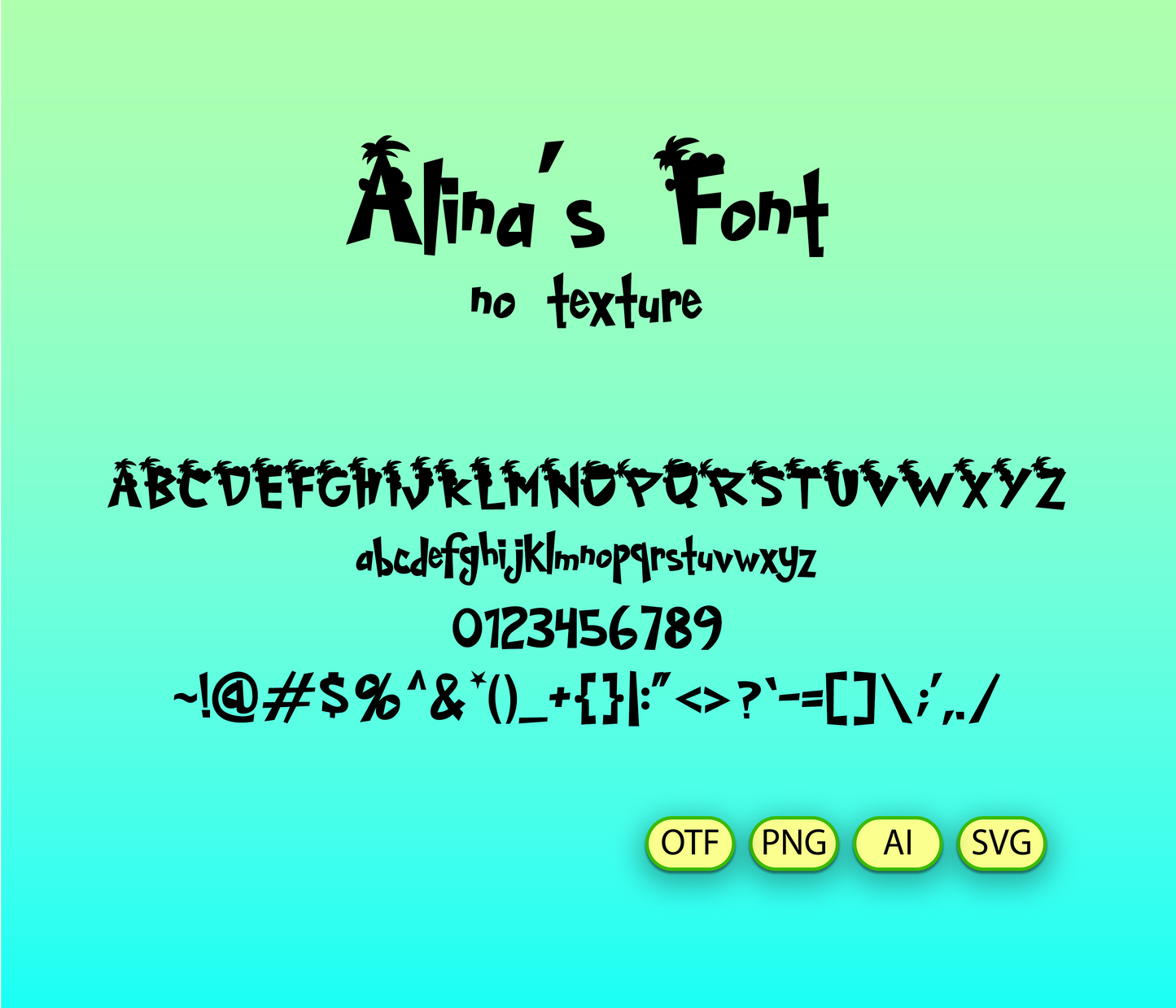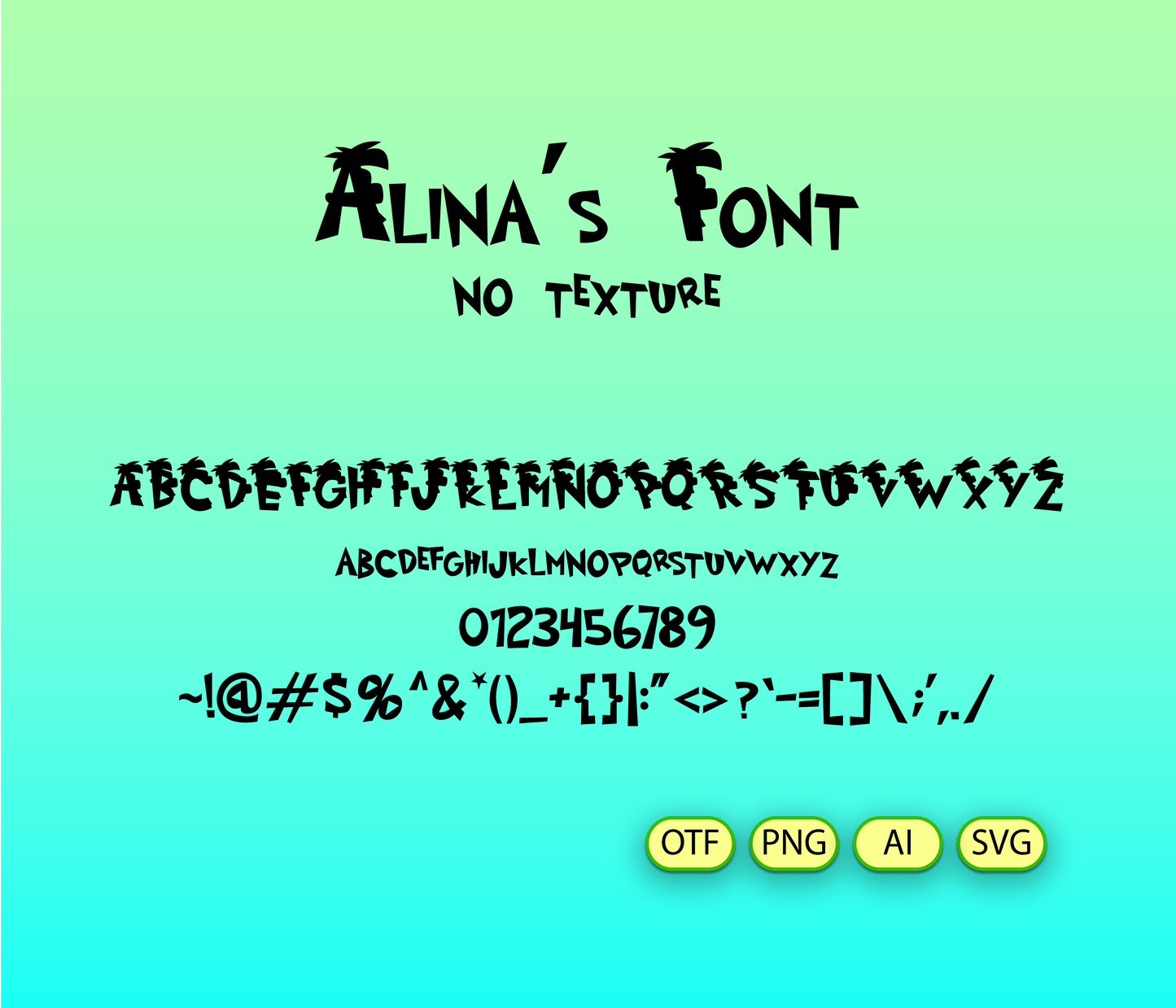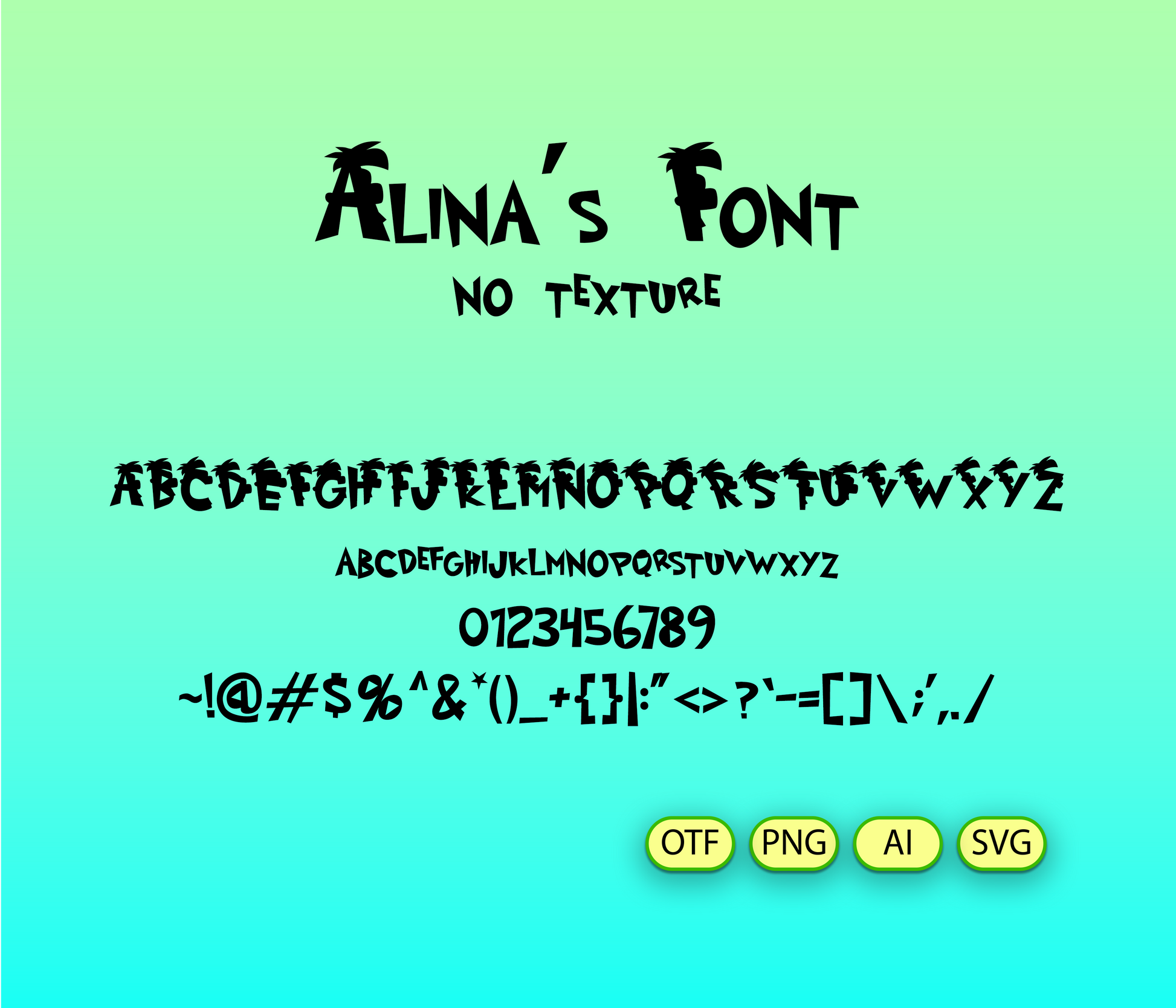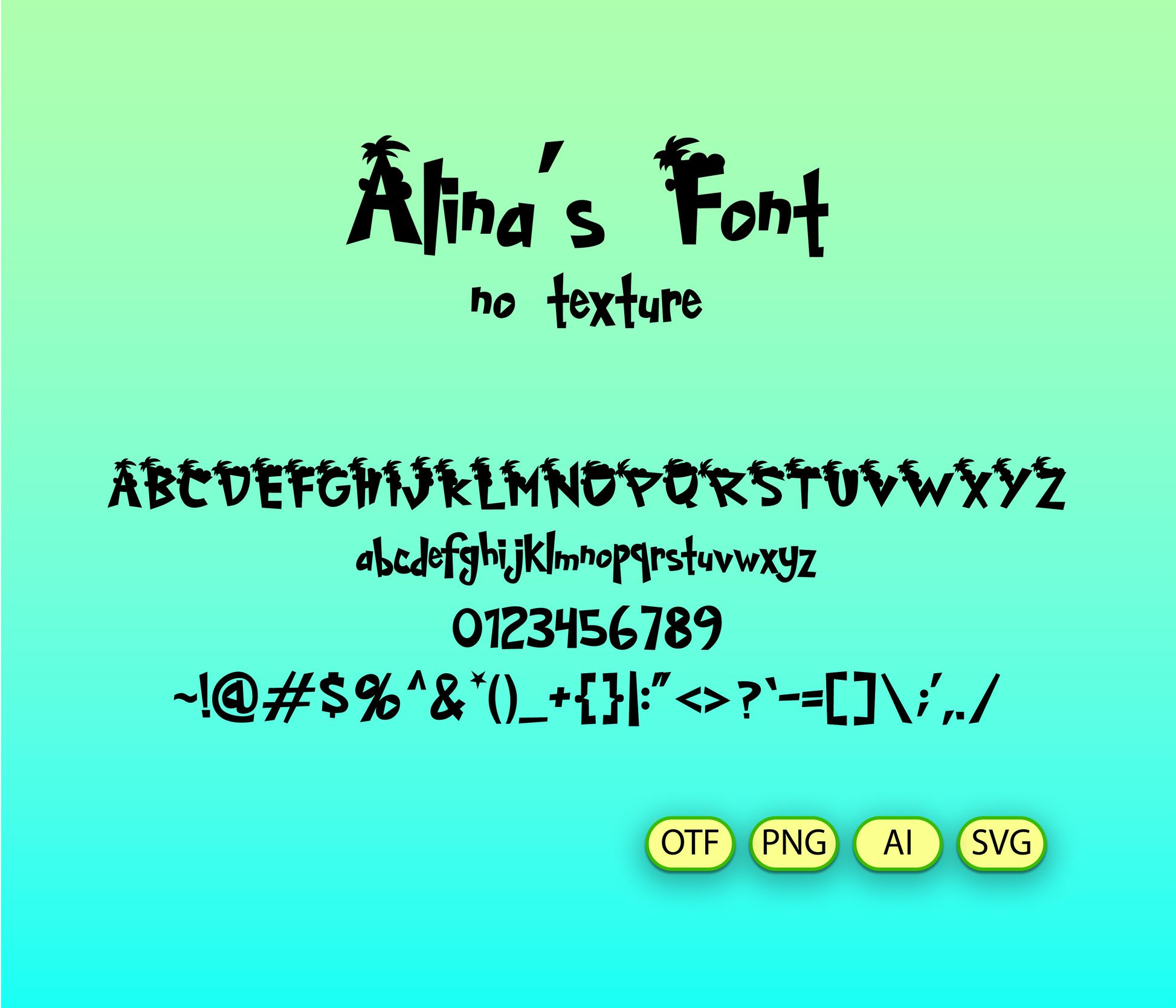
Backyard Builders Font
Backyard Builders Font Creative Vacation Makers
Step into the boundless world of summer creativity with our Backyard Builders font, capturing the essence of imaginative construction and vacation day adventures. Perfect for children's parties, maker events, creative workshops, and educational professionals, this font brings the ambitious, cheerful energy of young builders and endless summer possibilities to your projects. Create dynamic invitations, maker merchandise, or digital content with the bold, constructive spirit of kids transforming ordinary vacation days into incredible building adventures.
Our Backyard Builders font features angular, construction-inspired letterforms with blueprint elements reflecting the ambitious aesthetic of childhood building and vacation creativity. The characters blend playful construction with technical drafting, creating perfect fusion of fun design and maker mentality.
- Maker Events: Create energetic invites, posters, and banners for building camps, construction parties, and creative maker gatherings
- Creative Design: Perfect for DIY book covers, workshop promotions, and builder-themed party accessories that capture constructive excitement
- Digital Media: Enhance websites, blogs, and social media with ambitious headers and graphics that express childhood building and vacation adventure spirit
- Entertainment Content: Add authentic character to educational materials, construction designs, and promotional materials for creative building events
- Personal Projects: Bring builder vacation charm to scrapbooking, DIY crafts, and home decor inspired by the aesthetics of childhood construction adventures